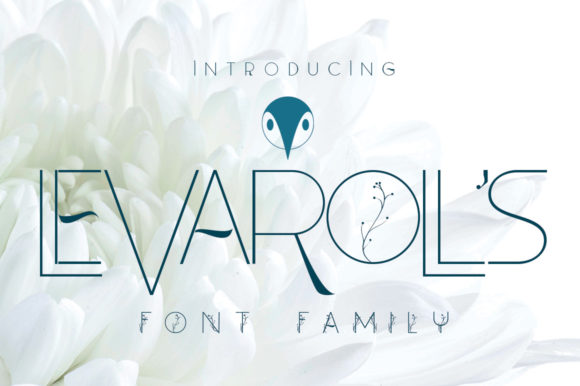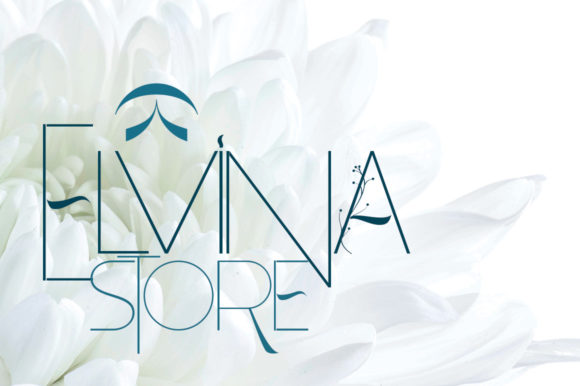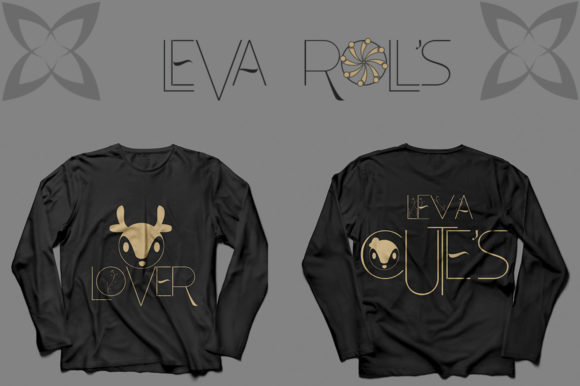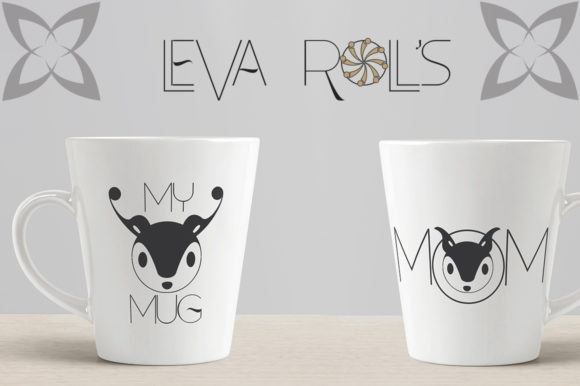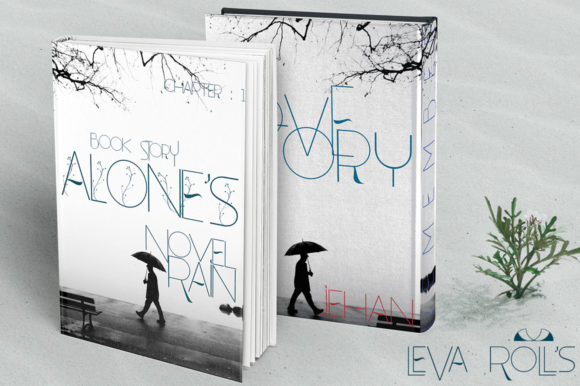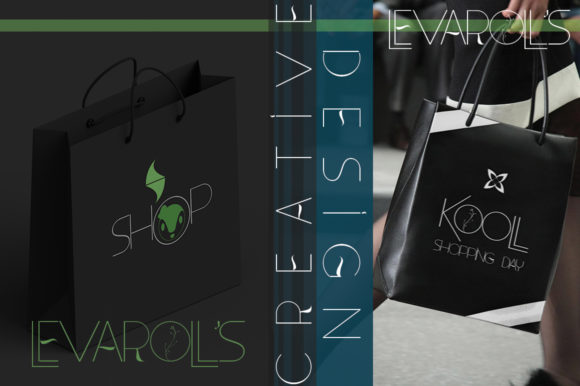
Introduction to Leva Rolls Font
Leva Rolls is a delicate and light sans serif font featuring beautiful and natural ornaments.
It will work perfectly in any flower or plant design .
Key Features of Leva Rolls Font
Why Choose Leva Rolls Font?